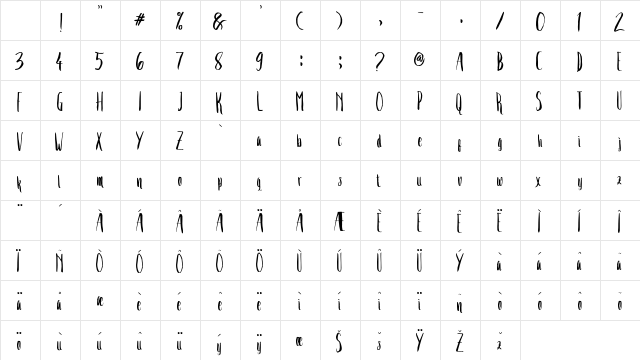
Complete Crash Two Regular glyph index. Displaying only characters natively supported by Crash Two Regular font.
Crash Two is a composed and adaptable typeface that performs quietly and consistently across a wide range of design contexts.